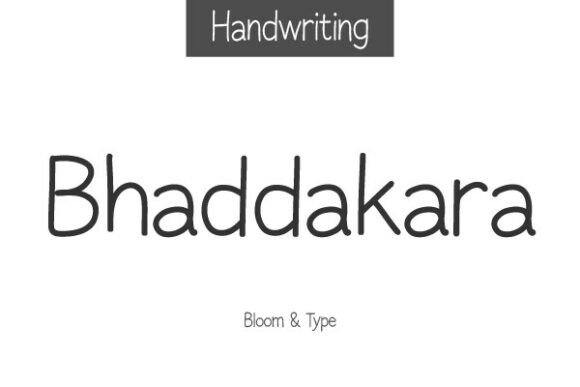
The Quest for the Perfect Font: Discovering Bhaddakara
I still remember the design project that led me to Bhaddakara. I was working on a branding project for a wellness company, and I needed a font that would convey warmth, approachability, and a sense of calm. I scoured the internet, tried out countless fonts, but nothing seemed quite right. That was until I stumbled upon Bhaddakara. ✨
This clean and charming handwriting typeface has been a game-changer for my designs. With its smooth curves and natural flow, Bhaddakara captures the essence of handwritten style while remaining easy to read and highly versatile. In this article, I’ll share my honest review, a practical guide on how to use Bhaddakara, and some valuable insights into this beautiful font.
An Honest Review of Bhaddakara
- ✅ Warmth and elegance: Bhaddakara brings a sense of warmth and modern elegance to any design project.
- ✅ Ease of readability: The font’s smooth curves and natural flow make it easy to read, even at smaller sizes.
- ✅ Versatility: Bhaddakara works beautifully in various design projects, from branding and social media graphics to packaging and invitations.
- ✅ Emotional connection: The font’s approachable character makes it ideal for creating an emotional connection with your audience.
While Bhaddakara is an excellent font, it’s not without its quirks. ⚠️ Some users may find that the font:
- 🤔 Lacks extreme boldness: Bhaddakara is a relatively elegant font, so it may not be the best choice for designs that require an extremely bold statement.
- 🤔 May not work well with very short texts: The font’s cursive nature means it may not be the best choice for very short texts, such as headings or titles.
The Backstory of Bhaddakara
Bhaddakara is a font designed with a specific purpose in mind: to bring warmth, simplicity, and modern elegance to creative projects. While the font’s origins are unclear, its design is undoubtedly inspired by the art of handwriting and the need for a friendly, approachable typography.
Q: Is Bhaddakara suitable for body text?
A: While Bhaddakara is a beautiful font, it’s best suited for headings, titles, and short paragraphs. For body text, a more traditional serif or sans-serif font may be more suitable.
Q: Can I use Bhaddakara for Buddhist-inspired or Pali-themed designs?
A: Yes, Bhaddakara is an excellent choice for Buddhist-inspired or Pali-themed designs. The font’s elegant and simple design makes it an ideal choice for these types of projects.